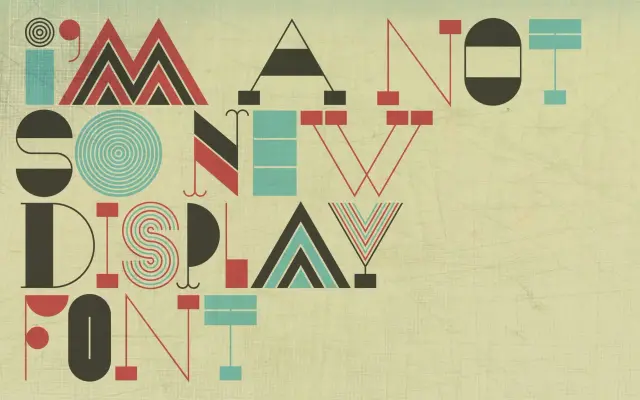
Alicia
In-House Intl · Alexander Wright
A geometric display typeface by Alexander Wright, constructed entirely from triangles, circles and rectangles for expressive, shape-led lettering.
Each letter is built from just three forms — triangle, circle and rectangle — giving the family a modular rhythm while preserving the individual character of each glyph. The shape-based system reads quickly at large sizes, making it well-suited to posters, event graphics and identity work where the letterforms need to register before they are read closely. A third variation exists for the most frequently used letters in English, adding visual nuance to the core system.
Built entirely from three elemental shapes — triangle, circle and rectangle — Alicia is a display typeface with a modular, shape-based construction that prioritises graphic presence over text legibility.